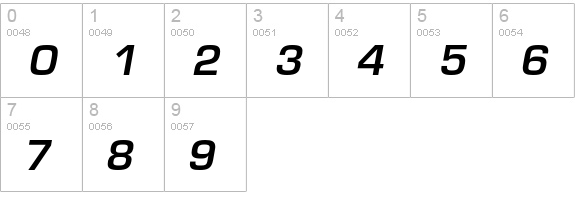
EuropeDemi Italic Font Details
EuropeDemi Italic is a distinctive, italic variant in the EuropeDemi typeface family \xE2\x80\x94 well suited to design and typography projects.
Introducing EuropeDemi Italic font, a sleek and sophisticated typeface designed to elevate your projects with a touch of elegance and modernity. This font exudes a sense of sophistication and style, perfect for a wide range of design applications. The italicized style adds a dynamic and unique flair to your text, making it stand out and capture attention. What's even better is that EuropeDemi Italic font is available for free download at FontsMarket.com. Yes, you read that right - this premium quality font can be yours with just a few clicks, allowing you to enhance your designs without breaking the bank. Don't miss out on the opportunity to add EuropeDemi Italic font to your collection and take your projects to the next level. Download it now and enjoy the limitless creative possibilities it offers.